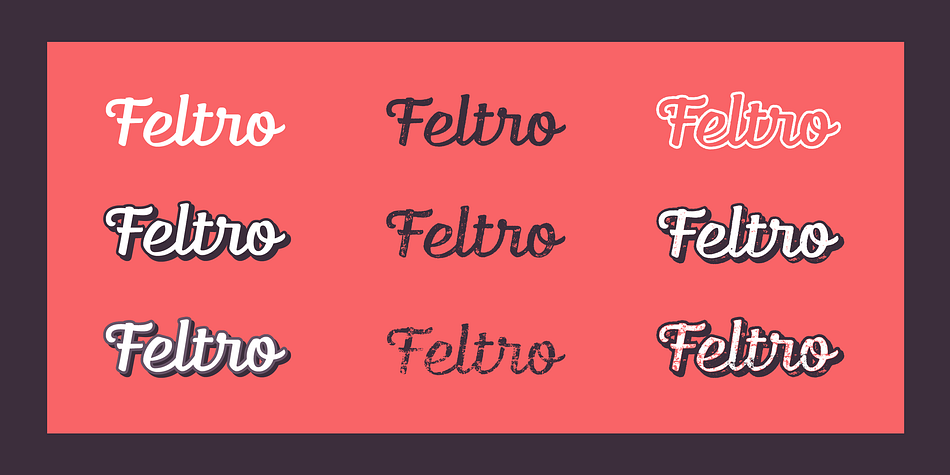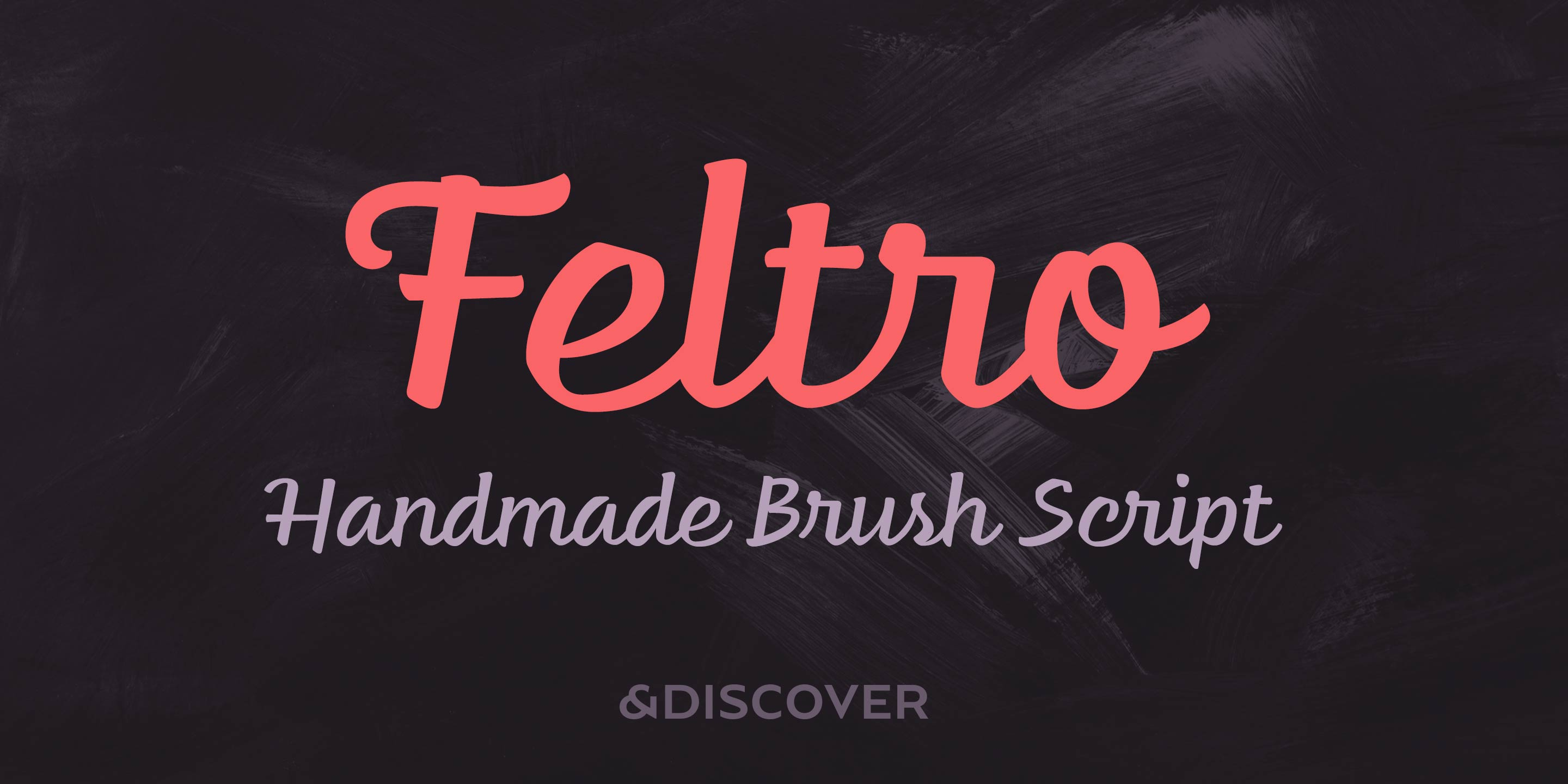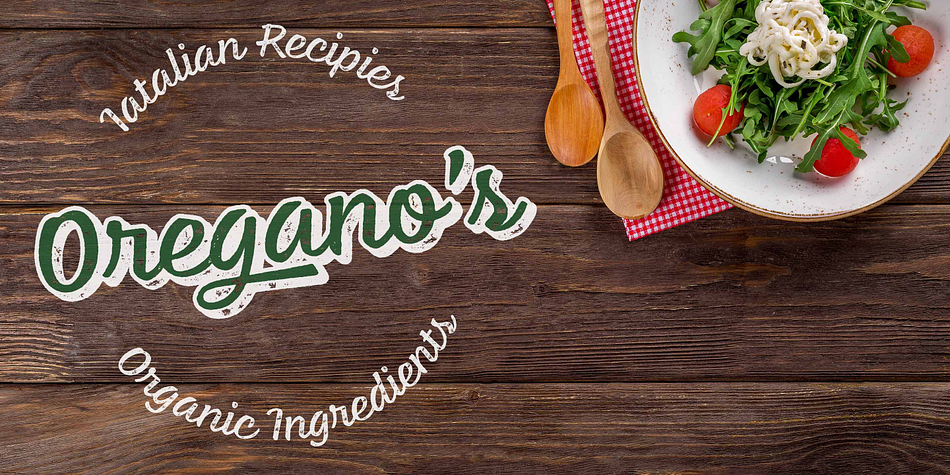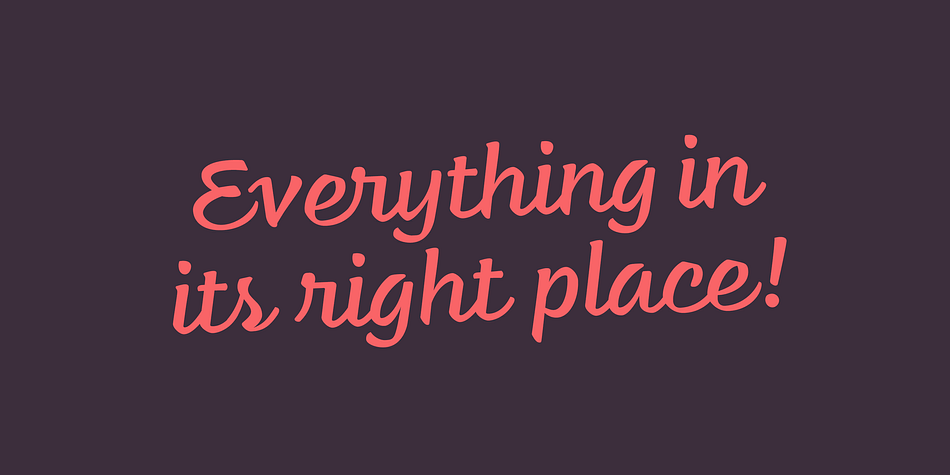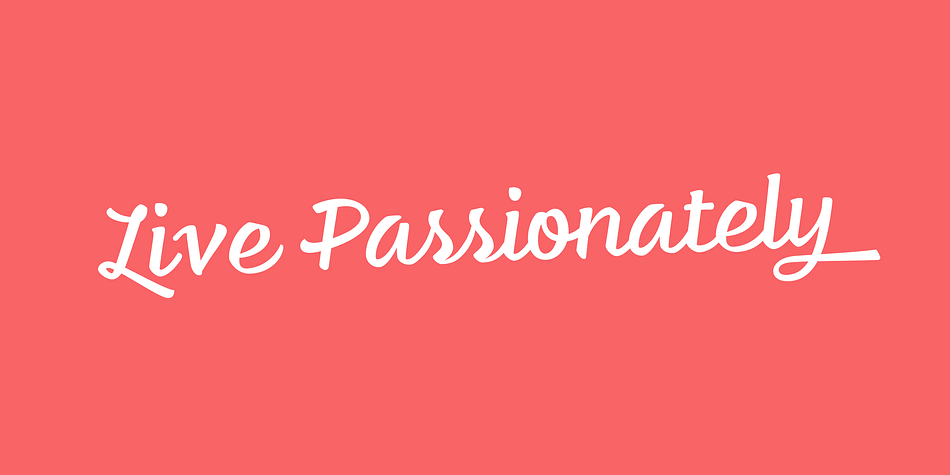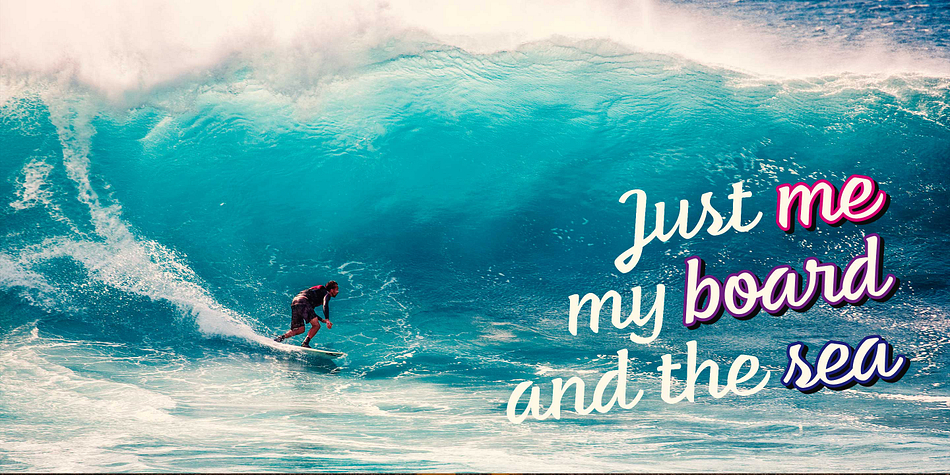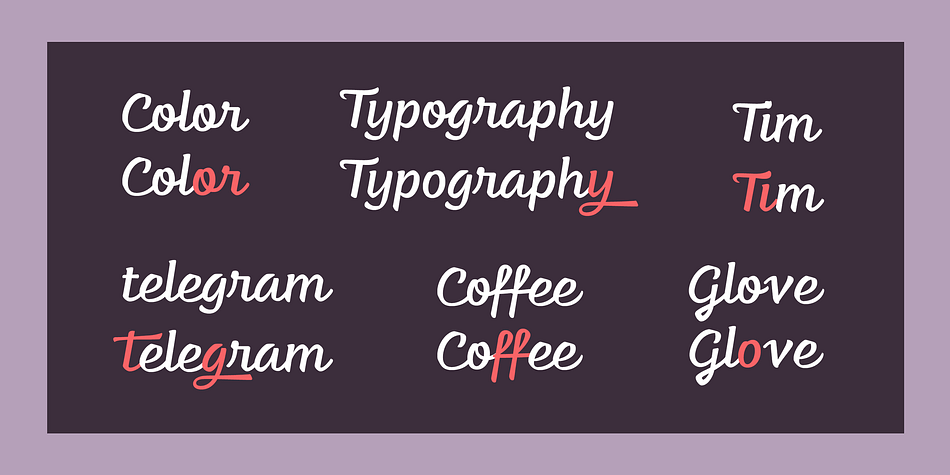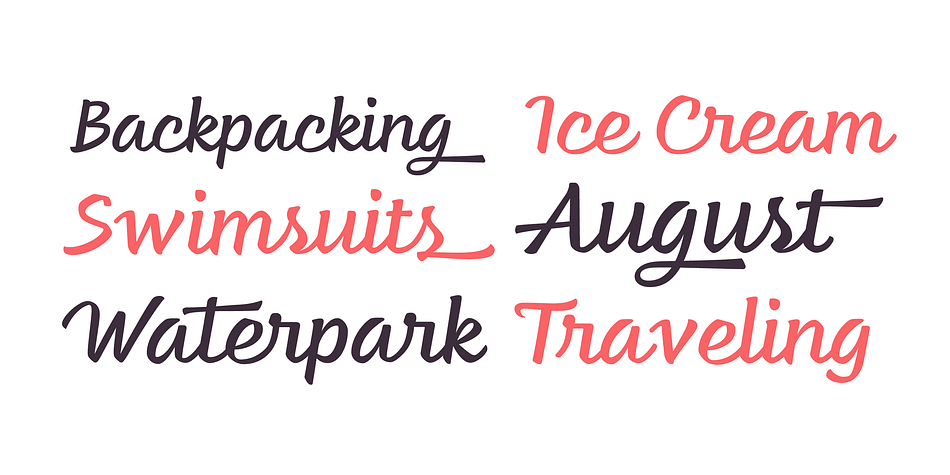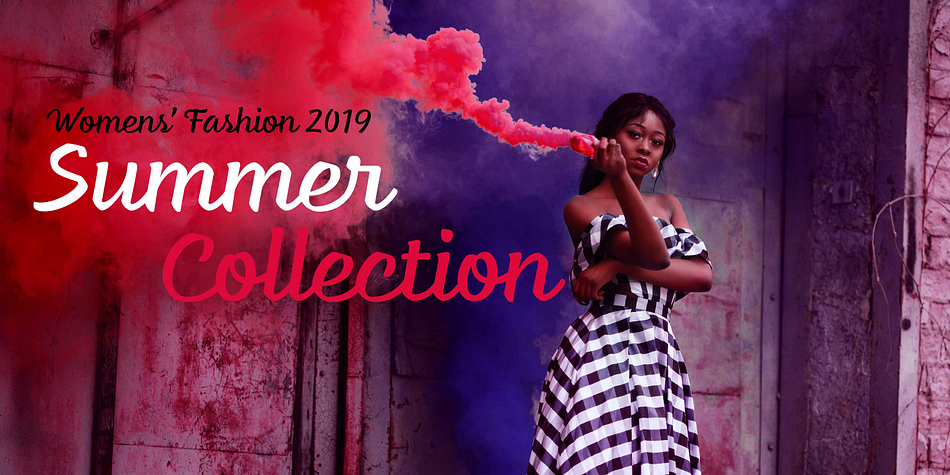
Designed by Natanael Gama, Feltro is a script and brush script font family. This typeface has nine styles and was published by Ndiscover.
Feltro is a Handmade Brush Script full of personality.
Because of its fast brush strokes the design looks really fresh and full of identity.
It has a total of 9 variants that will give you a lot of customisation options. Outline, Shadow, 4 Textures, and also Textured Outline and Shadow.
You can combine the 9 styles in different manners and create colourful typographic expressions.
Feltro is loaded with features, like terminal forms, ligatures and contextual alternates, so that you have even more stylistic options. It has a large latin language support across all the 9 styles so you can use it with confidence in all styles.
You can use Feltro in advertising, branding, merchandise, web headlines, and more. Make you buy the full family and benefit of a massive discount.